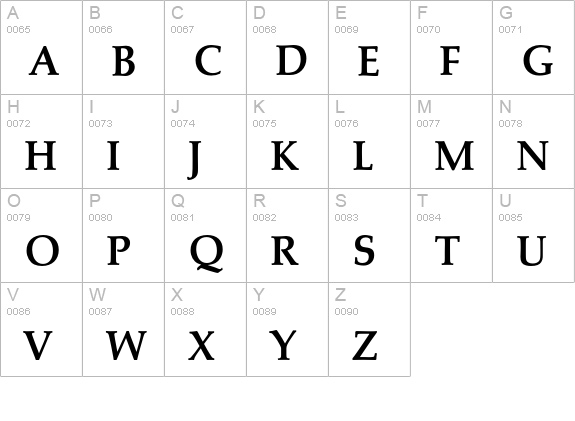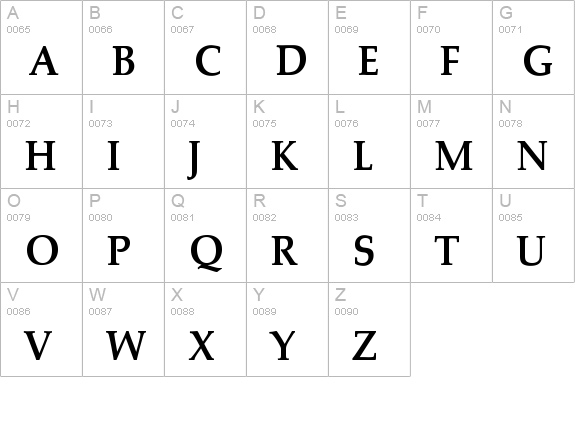
Marathon-DemiBold is a sub-bold, structured variant in the Marathon typeface family \xE2\x80\x94 well suited to sub-headlines and emphasised passages.
Marathon-DemiBold font is a bold and powerful typeface that exudes strength and endurance. Its robust letterforms have a distinctive weight and presence, making it the perfect choice for bold headlines, impactful logos, and eye-catching titles. The Marathon-DemiBold font strikes a balance between elegance and impact, with its clean lines and strong serifs. It commands attention and adds a touch of sophistication to any design, making it a versatile choice for both print and digital applications. What sets Marathon-DemiBold font apart is its availability as a free download at FontsMarket.com. This means that designers, creatives, and typographers can easily access and use this amazing font without any cost. Its free availability makes it a valuable asset for individuals and businesses alike, offering opportunities for creativity and innovation. With Marathon-DemiBold font, you can create stunning designs that leave a lasting impression. Whether you're designing a poster for a marathon event, a fitness brand logo, or a bold headline for a magazine cover, this font will elevate your work to new heights. So, take advantage of this incredible opportunity and freely download Marathon-DemiBold font today at FontsMarket.com. Unleash your creativity and bring your design projects to life with this bold and captivating typeface.